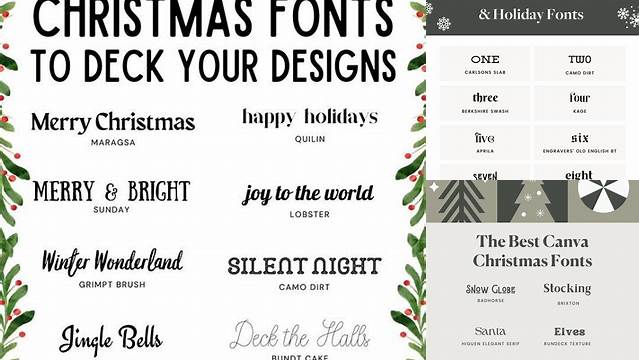
Christmas Fonts In Canva: Your Guide To Festive Design
Hey guys! Christmas is just around the corner, and it's the perfect time to start decking the halls… and your designs! Whether you're crafting social media posts, designing holiday cards, or sprucing up your website, the right font can make all the difference. And guess what? Canva is your Christmas design headquarters! This guide will walk you through everything you need to know about Christmas fonts in Canva, from finding the perfect festive typeface to using them like a pro. So, let's dive in and get those creative juices flowing!
The Magic of Christmas Fonts: Why They Matter
Alright, before we get to the nitty-gritty, let's talk about why fonts are so darn important, especially during Christmas. Think about it: a font is more than just a way to display words; it's a visual representation of your message. It sets the tone, evokes emotions, and captures the spirit of the season. Imagine a Christmas card with a plain, boring font. Does it scream “holiday cheer”? Probably not! Now, picture that same card with a whimsical, hand-drawn font that looks like it was penned by Santa himself. See the difference? That's the power of Christmas fonts. They instantly transform your designs from ordinary to extraordinary, adding that special touch of holiday magic. They create the atmosphere of Christmas.
Christmas fonts are specifically designed to capture the essence of the season. They come in a variety of styles, from classic and elegant to playful and quirky, each one evoking a different feeling. Think of the familiar sight of snowflakes gently falling on a frosty window, the warm glow of fireplace, or the exciting feeling of opening presents. These fonts can help you instantly communicate these same feelings. When chosen correctly, they can transport your audience to a winter wonderland, making them feel all warm and fuzzy inside. The type of font you choose depends on your project and your target audience. For example, a more elegant font might suit a corporate Christmas card, while a more playful font would be perfect for a social media post targeting families.
Choosing the right font can take your designs to the next level. It can also help you to avoid your designs looking boring or unprofessional. And remember, your font choice should always align with your overall design aesthetic and the message you want to convey. So, the next time you're designing something for Christmas, remember the magic of fonts and how they can turn your designs into something truly special.
Popular Christmas Font Styles
Let's explore some popular styles of Christmas fonts that are available in Canva. Understanding these can help you narrow down your search and find the perfect font for your project.
Classic & Elegant Fonts: These fonts are all about sophistication and tradition. They often feature serifs (those little decorative strokes at the end of the letters), giving them a timeless feel. Think of fonts like Playfair Display or Montserrat, which can be easily adapted with some festive colors and embellishments. These are great for formal invitations, cards, or anything that needs a touch of class. These fonts will help you give a more mature, and elegant look to your Christmas design.
Whimsical & Playful Fonts: This is where the fun really begins! These fonts are perfect for creating a lighthearted and joyful atmosphere. Imagine fonts that mimic handwritten letters, like those you might see on a gingerbread house or a Christmas ornament. Think of designs with fun Christmas decorations. These are perfect for social media posts, kids' crafts, or anything that needs a touch of merriment. They bring a sense of fun and excitement, which is crucial during the holiday season. They help your designs to feel friendly and approachable.
Hand-Lettered & Script Fonts: These fonts try to mimic the look of real handwriting, adding a personal and artistic touch to your designs. They often have flowing strokes and elegant curves. These are great for adding a touch of warmth and personality, perfect for Christmas cards, gift tags, or anything that needs a handmade feel. These fonts add an element of artistry and charm to your designs, making them stand out from the crowd. They make your designs feel unique and special, which is what everyone wants to create this Christmas.
Modern & Minimalist Fonts: Sometimes, less is more. These fonts are all about clean lines and a contemporary look. Think of simple sans-serif fonts that are easy to read. These are great for modern designs, websites, or anything that needs a sleek and sophisticated feel. They create a clean and uncluttered look, which can be very effective in conveying a sense of professionalism and style.
Finding Christmas Fonts in Canva: Your Step-by-Step Guide
Okay, so now that you know the importance of Christmas fonts and some of the styles you can choose from, let's jump into Canva and find the perfect fonts for your designs. Canva has a vast library of fonts, including many options for Christmas. Here's your step-by-step guide:
Open Canva and Start a New Design: Log in to your Canva account and start a new design. You can choose from the many templates or create your own custom design. The choice is yours!
Add Text: Click on the “Text” tool in the left-hand toolbar. Add a text box to your design. You can also select a text from Canva's library of pre-designed text elements to get started faster.